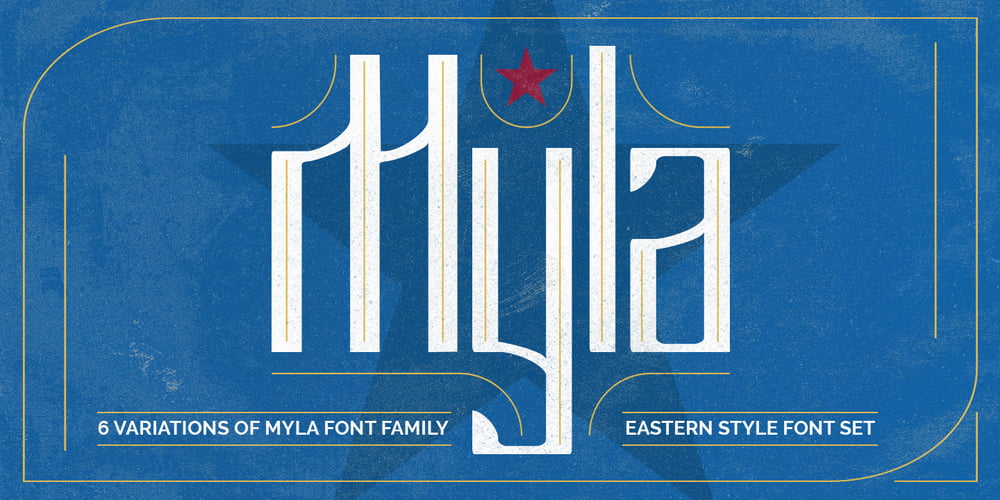
Myla
Myla font
Myla Font Family was designed by Leonard Posavec and published by Creative Toucan. Myla contains 6 styles and family package options. Myla makes it easier to convey the message in your designs. Use its eastern, old soviet inspired style for awesome display, labeling, clothing, movie screen, posters, movie titles, gigs, album covers, logos, and much more. It comes in 3 styles: Regular, Bold and Black, in 2 variations of regular and italic. Inspired by eastern and soviet traditions, hardworking people and 1960s, Myla is ideal for retro and vintage projects, from clear to rough looking designs. Myla features: Stylistic alternatives Ligatures International characters (Multi-lingual) Punctuation symbols OpenType Features Multilanguage Support: English, Albanian, Danish, Dutch, Estonian, Croatian, Bosnian, Slovenian, Finnish, French, German, Icelandic, Italian, Norwegian, Portugese, Spanish, Swedish with a lot of other languages; see the Full Character List. Note: To access the extra alternate letters, you will need to use the glyphs panel. Many design programs offer this ability, including Adobe Photoshop CC 2015 , Adobe Illustrator, Adobe Indesign.